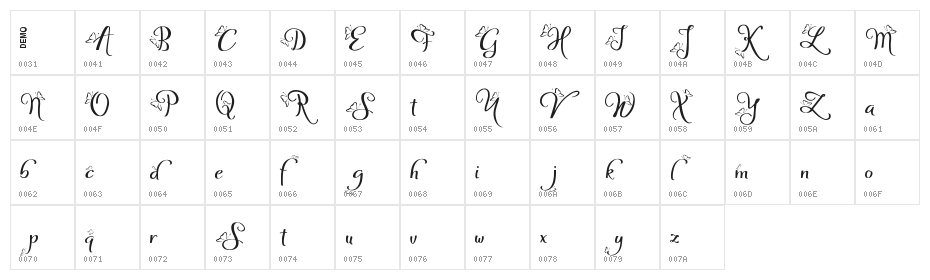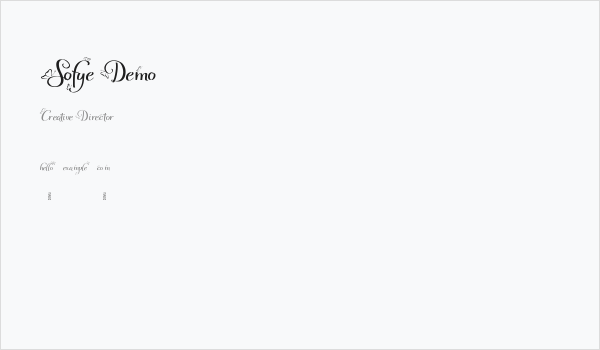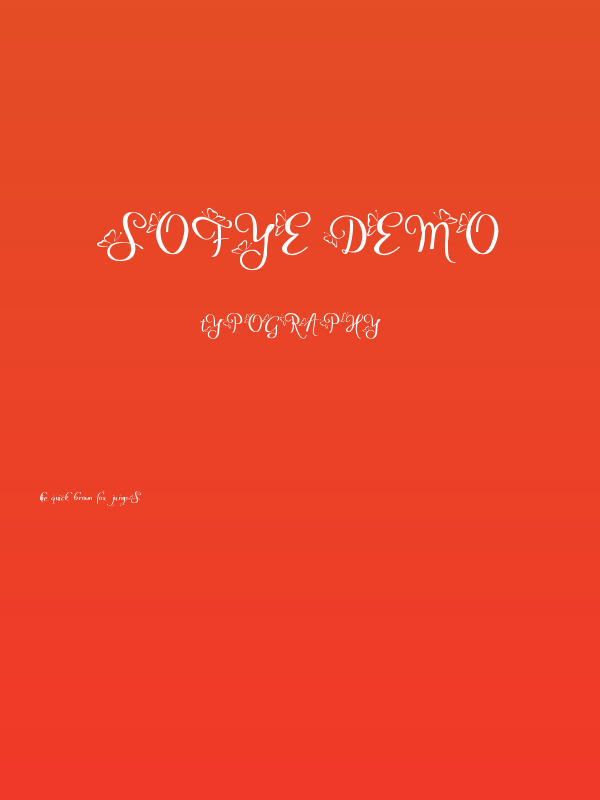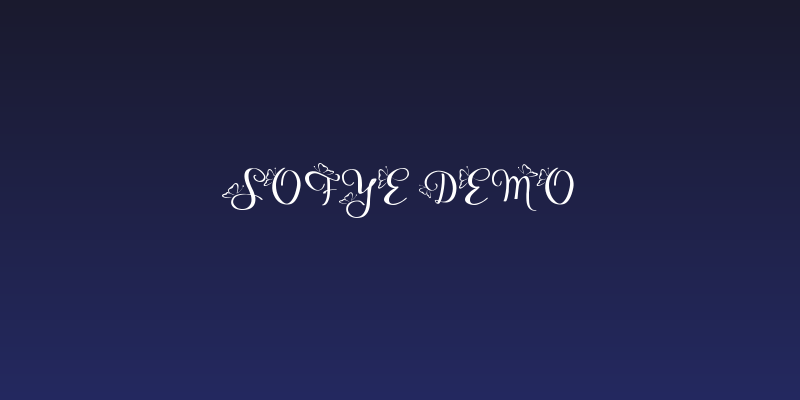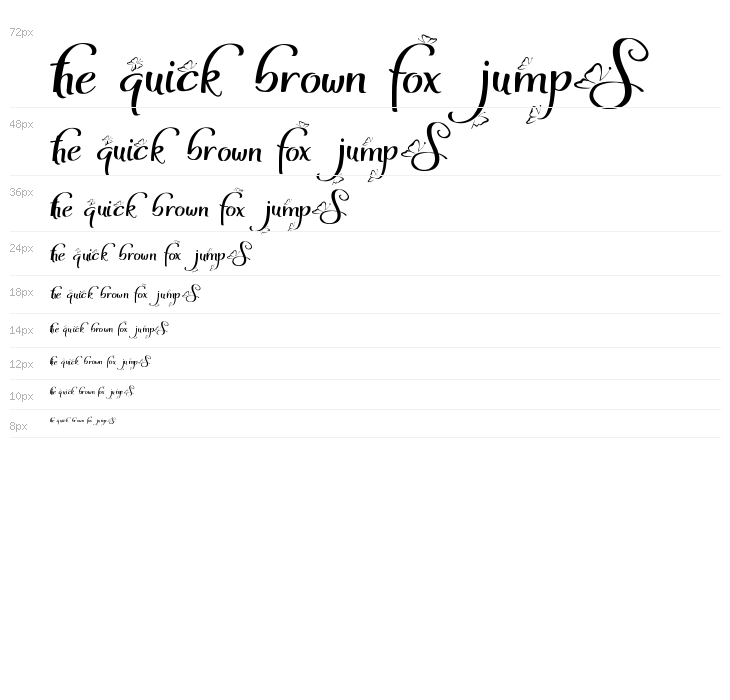
Sofye Demo Font
Sofye Demo Description
This font features an elegant and decorative script style, characterized by its flowing, cursive letters adorned with delicate butterfly motifs. The uppercase letters are particularly ornate, with intricate loops and flourishes that add a whimsical touch. The lowercase letters maintain a consistent style, with smooth curves and a slightly playful appearance. The numerals and special characters are designed to match the overall aesthetic, ensuring a cohesive look across all text. This font is ideal for projects that require a touch of elegance and creativity, such as invitations, greeting cards, or branding materials.